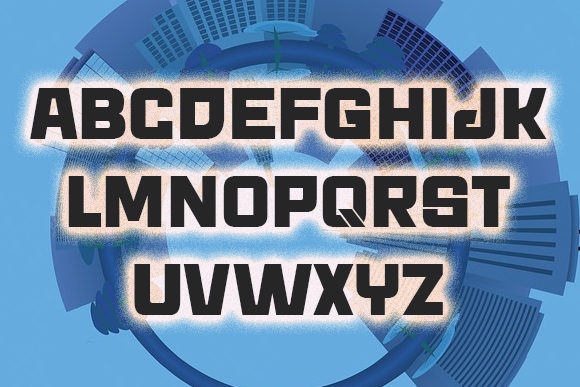
Introducing Archigadget Font: The Bold and Sharp Display Font for Creative Minds
Are you tired of using the same old fonts for your designs? Do you want to add a touch of uniqueness and creativity to your work? Look no further than Archigadget Font, a bold and sharp-looking display font that is sure to inspire your next project. In this article, we’ll explore the features and benefits of Archigadget Font, and show you how to make the most of its endless possibilities.
What is Archigadget Font?
Archigadget Font is a display font designed to make a statement. Its bold and sharp lines make it perfect for headlines, titles, and any other text that needs to grab attention. The font is clean and modern, with a sleek design that is both stylish and versatile. Whether you’re a designer, craftsperson, or simply someone who loves to create, Archigadget Font is the perfect addition to your toolkit.
Key Features of Archigadget Font
- Bold and Sharp Lines: Archigadget Font features bold and sharp lines that make it perfect for display text.
- Clean and Modern Design: The font has a clean and modern design that is both stylish and versatile.
- Endless Possibilities: With Archigadget Font, you can create a wide range of designs, from bold and dramatic to sleek and sophisticated.
Benefits of Using Archigadget Font
So why should you choose Archigadget Font for your designs? Here are just a few benefits of using this amazing font:
- Adds Creativity to Your Designs: Archigadget Font adds a touch of creativity and uniqueness to your designs, setting them apart from the rest.
- Perfect for Display Text: The font is perfect for display text, including headlines, titles, and other text that needs to grab attention.
- Versatile: Archigadget Font is versatile and can be used for a wide range of designs, from posters and flyers to logos and branding.
- Easy to Read: Despite its bold and sharp lines, Archigadget Font is easy to read, making it perfect for designs that need to communicate a message.
Inspirational Ideas for Using Archigadget Font
Now that you have Archigadget Font, here are some inspirational ideas for using it:
- Create a Bold Logo: Use Archigadget Font to create a bold and eye-catching logo for your business or brand.
- Design a Poster: Use the font to design a poster that grabs attention and communicates a message.
- Make a Statement with Your Headlines: Use Archigadget Font to make a statement with your headlines and add a touch of creativity to your designs.
- Experiment with Different Colors: Experiment with different colors and textures to add depth and interest to your designs.
Archigadget Font is a bold and sharp-looking display font that is sure to inspire your next project. With its clean and modern design, endless possibilities, and ease of use, it’s the perfect addition to your toolkit. Whether you’re a designer, craftsperson, or simply someone who loves to create, Archigadget Font is a must-have font that will take your designs to the next level.